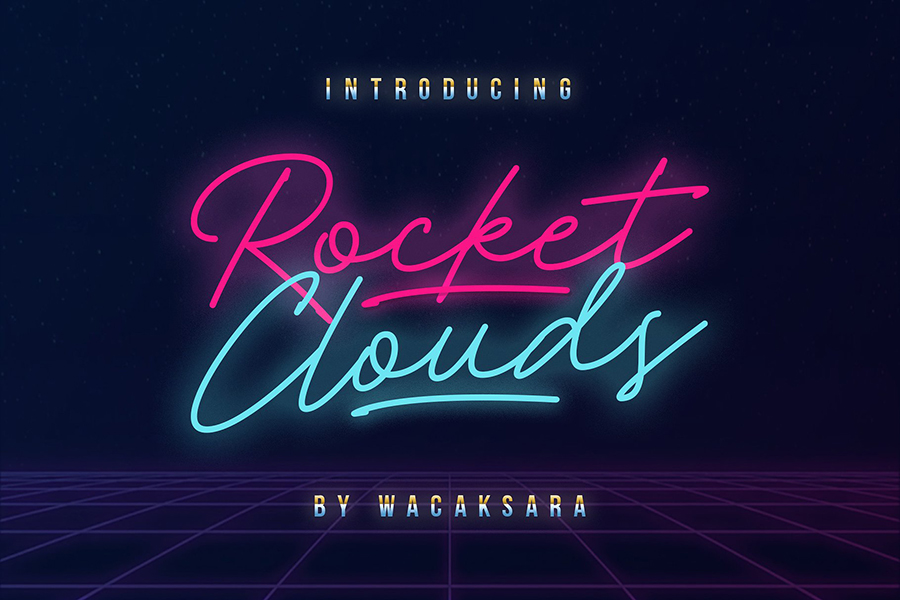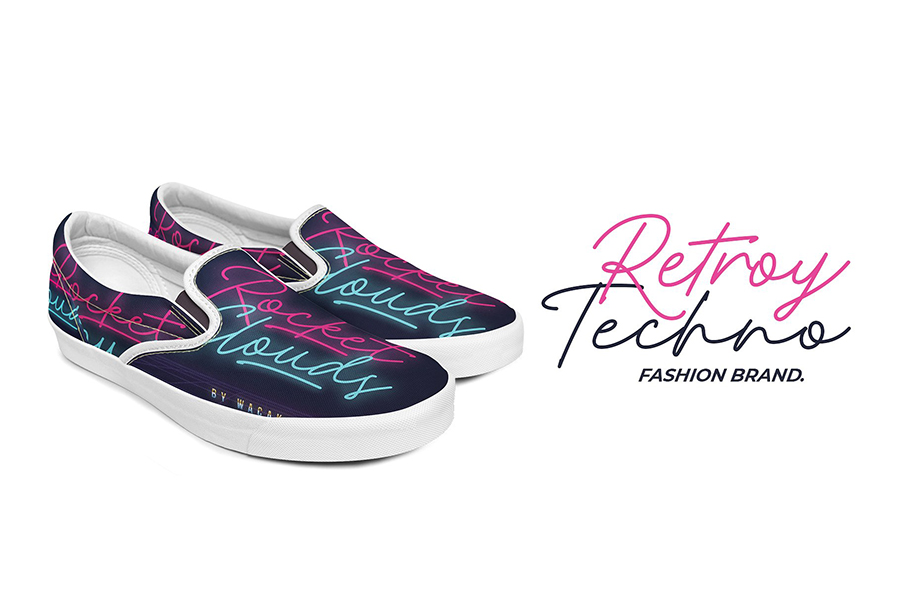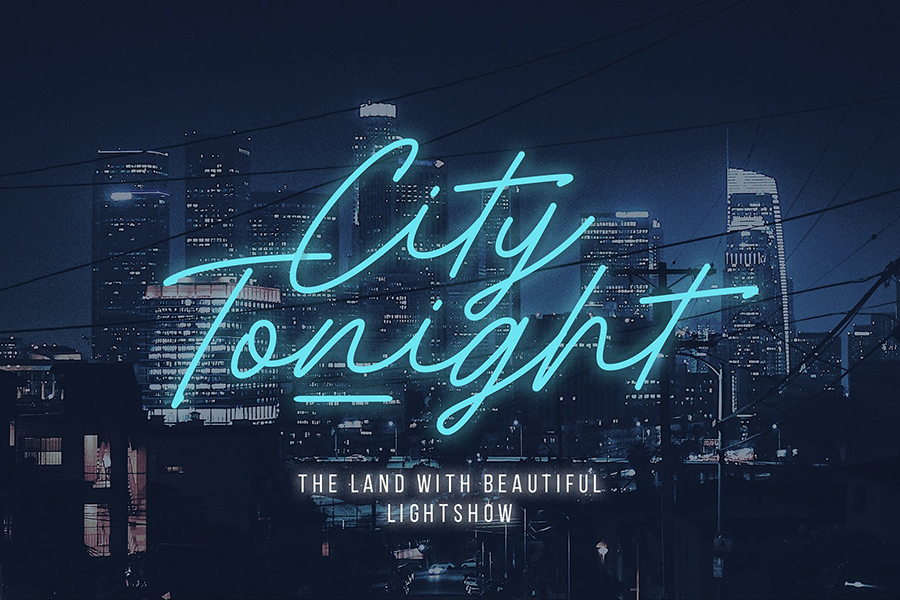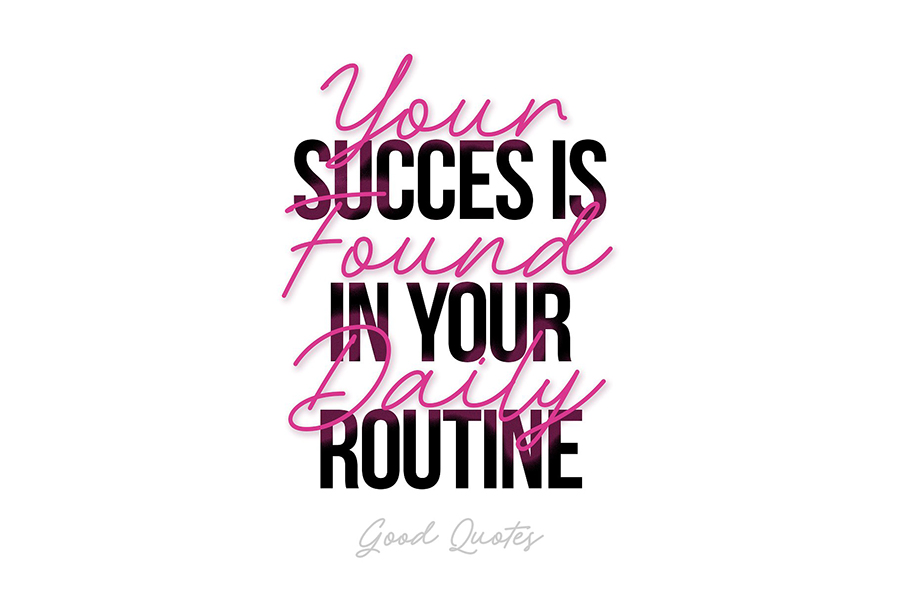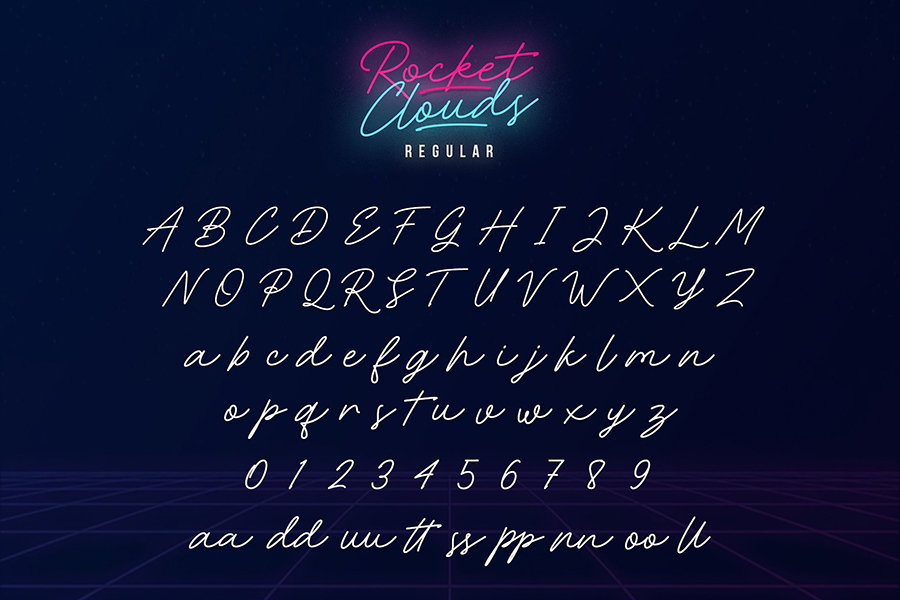
Rocket Clouds Free Font Demo
Introducing Rocket Clouds Free Font Demo, a trial version of new font by Wacaksara Co. The font has take 1980’s music and neon lights — a contemporary take on retro styling as its inspiration. This stunning font will bring your designs to life with an infusion of boisterous nostalgia. Hence it is great for use in labels, branding, packaging, or text overlay to any background picture, Rocket Clouds will make a gorgeous addition to your type library!